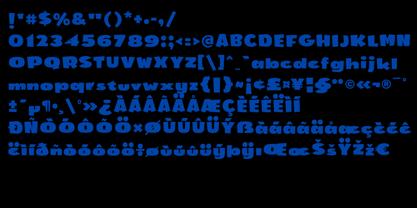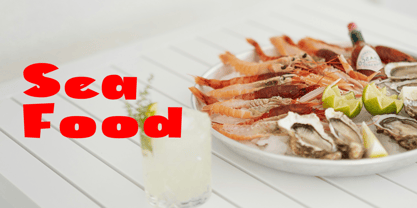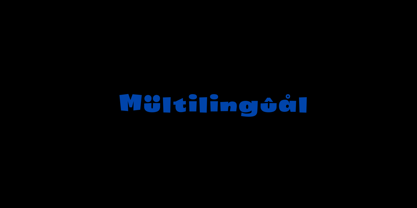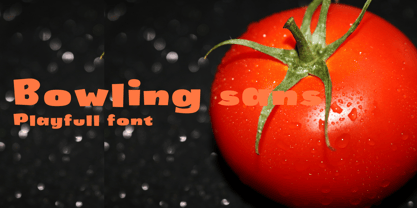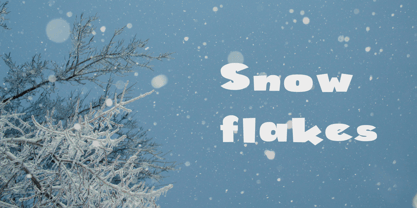
Bowling sans
by 4RM Font
The Bowling sans Font Family was designed by Arief Rochman and published by 4RM Font. Bowling sans contains 2 styles and family package options. More about this family
Inspired by the game of bowling, the Bowling font is a casual font made with round, chunky shapes, giving it a cheerful, casual, and somewhat cartoonish visual impression — perfect for children's designs, toy logos, or posters that want to appear friendly and fun. A unique characteristic is that the letters "q" and "k" have slightly asymmetrical shapes, giving a dynamic impression. The letters appear slightly tilted or not perfectly aligned, adding an informal and energetic feel.